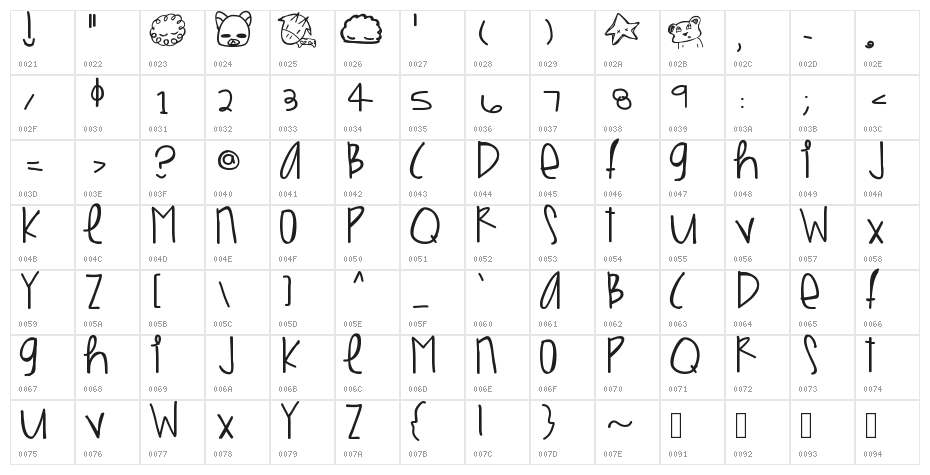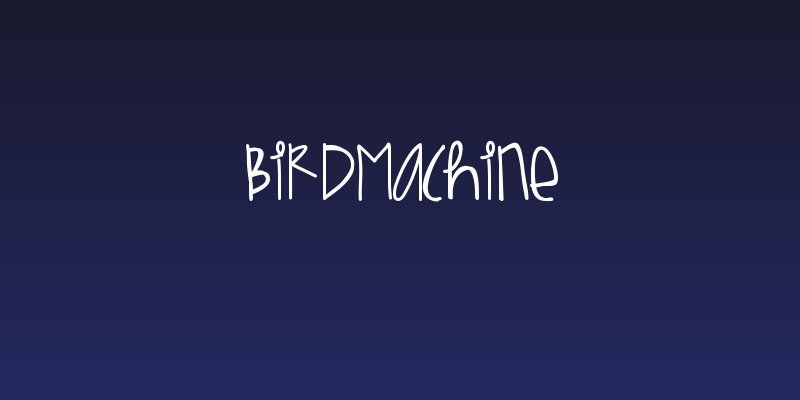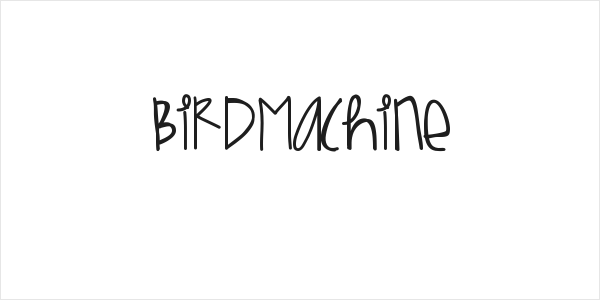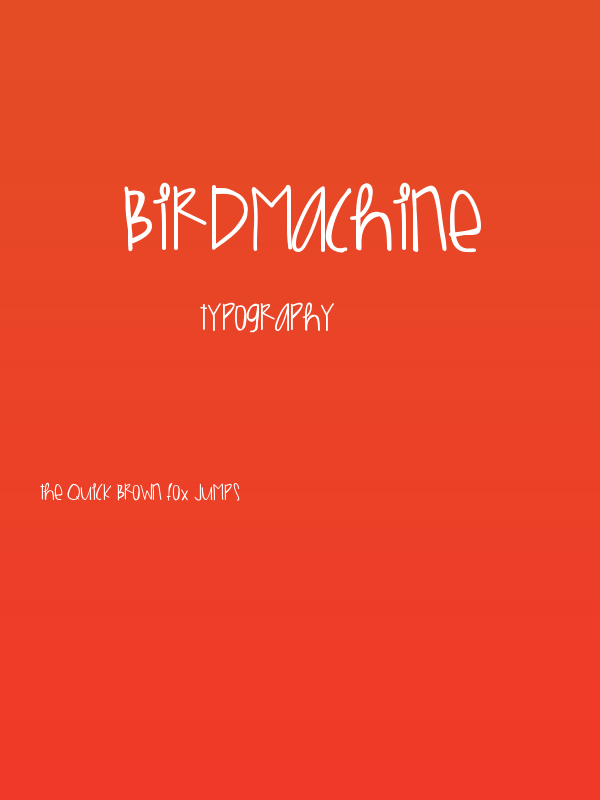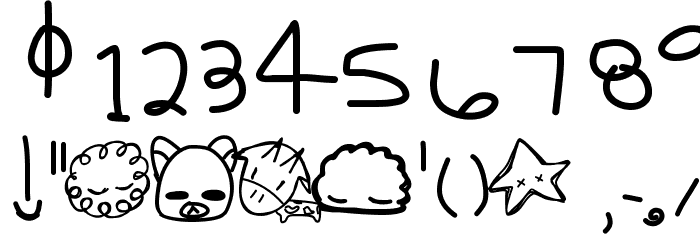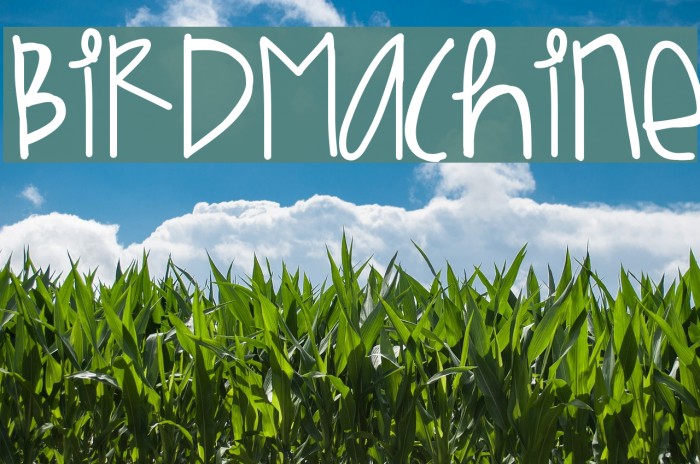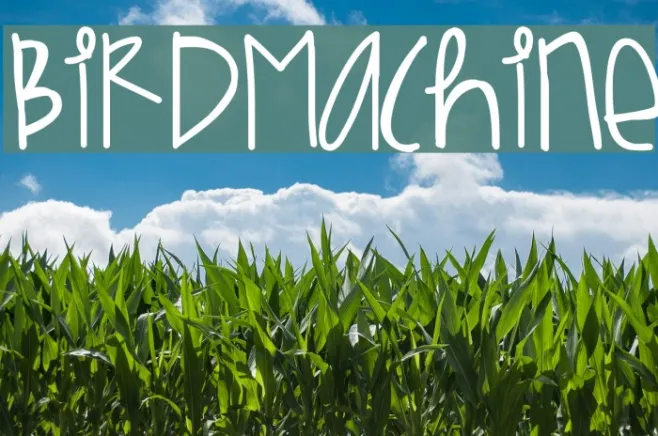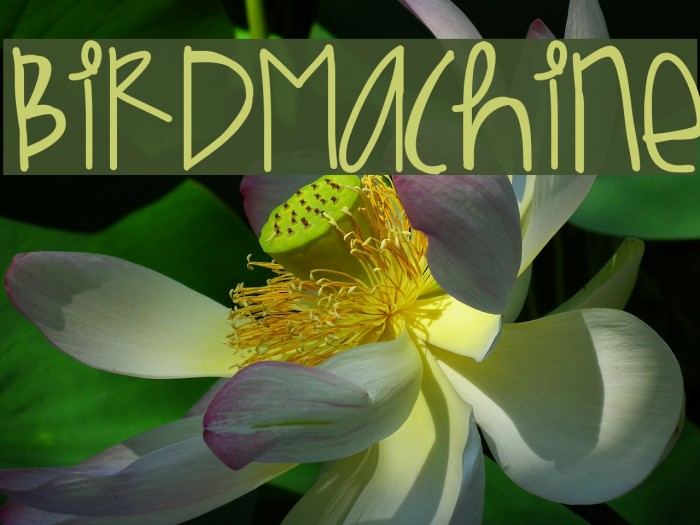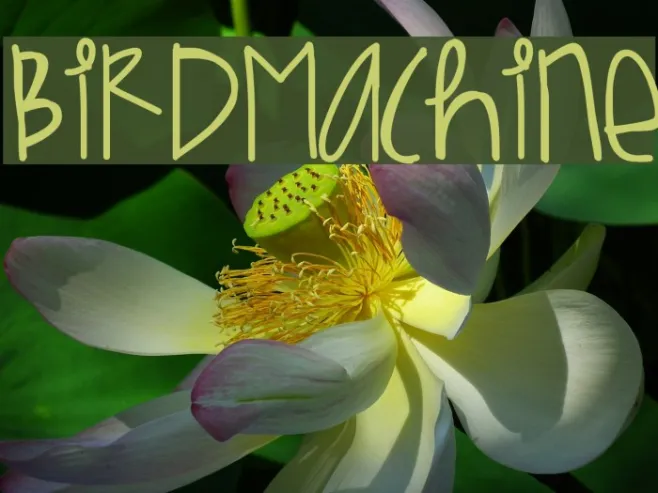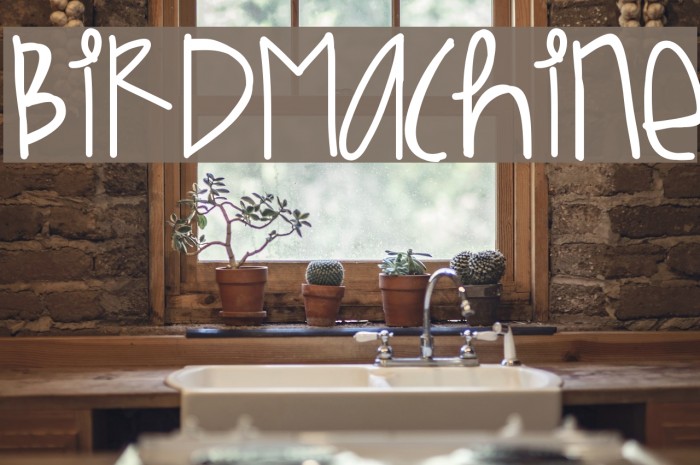
BirdMachine Font
BirdMachine Description
This playful and whimsical font features a handwritten style with a casual, friendly appearance. The characters are tall and narrow, with a slight slant that adds to its informal charm. The strokes are consistent in width, giving it a clean look despite its playful nature. The font includes a full set of uppercase and lowercase letters, numbers, and a variety of special characters. The unique style of the font makes it suitable for creative projects that require a personal touch.
| Proposed Projects | Ideal for children's books, greeting cards, playful branding, and creative social media graphics. |